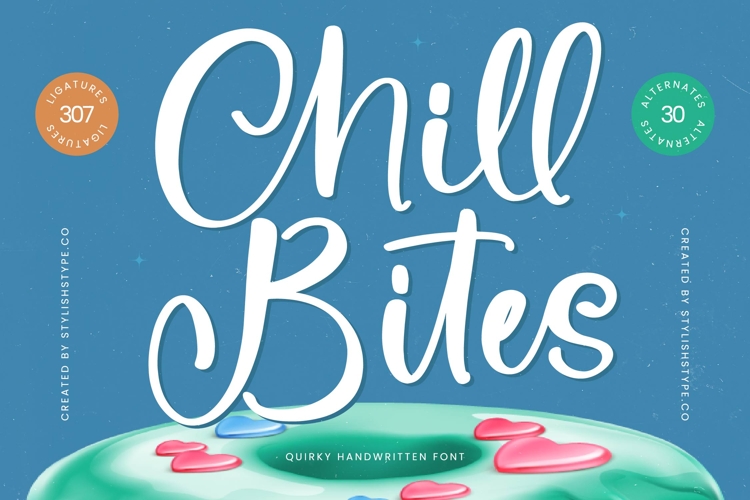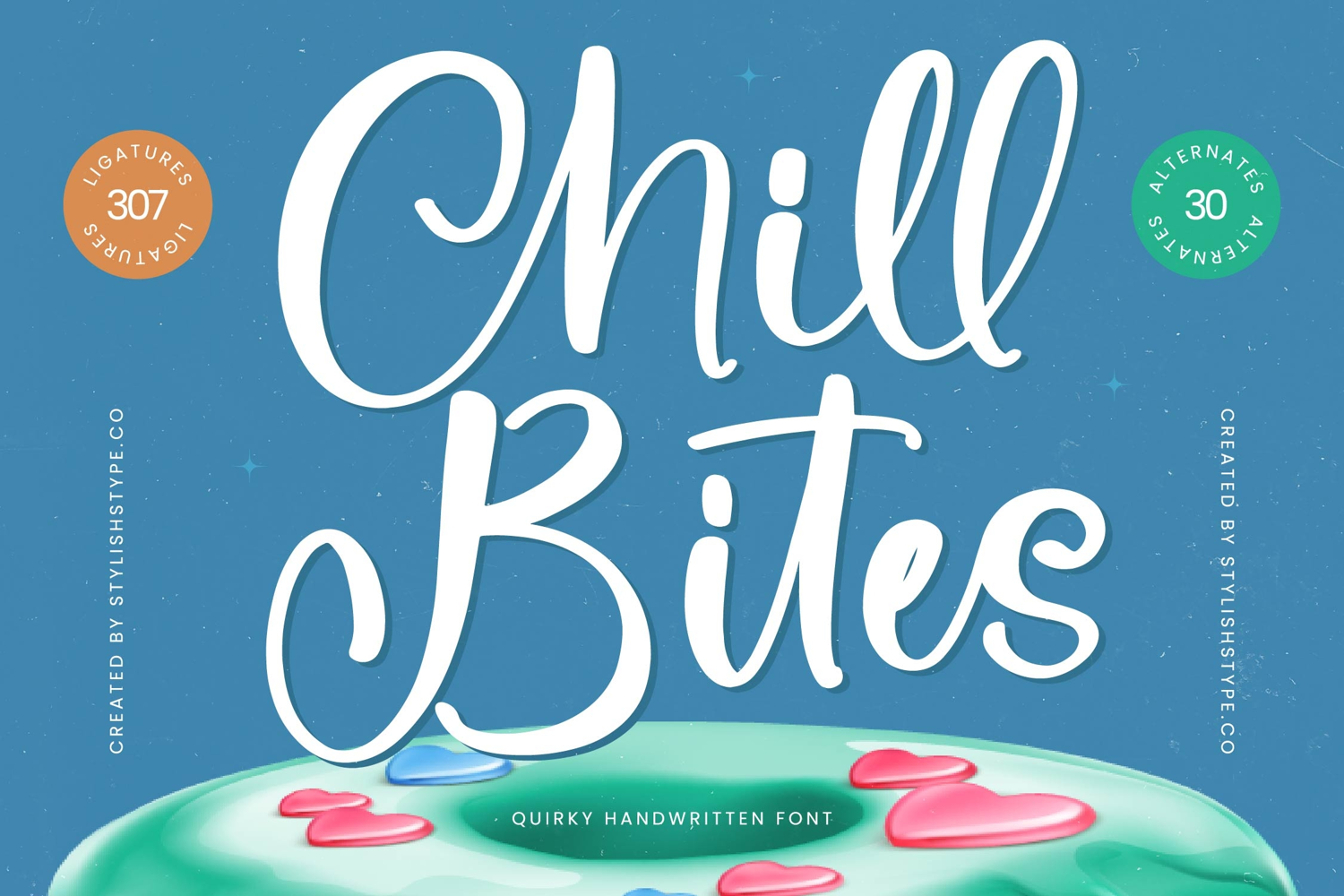
Chill Bites - Quirky Handwritten Font
Unleash a wave of delightful charm into your designs with Font Chill Bites - Quirky Handwritten Font Script. This captivating script font exudes a spontaneous, handcrafted aesthetic, perfect for conveying warmth and authenticity. Its flowing strokes and organic forms create an inviting visual experience, ideal for projects seeking a friendly, approachable, yet highly distinctive typography solution that genuinely connects with audiences.
Experience unparalleled design versatility with Font Chill Bites - Quirky Handwritten Font Script. Boasting an extensive character set, including over 300 unique ligatures and 30 stylistic alternates, this font offers endless creative possibilities. These rich features allow designers to craft truly bespoke headlines and text, ensuring a dynamic appearance that mimics natural handwriting and avoids repetitive character forms for a polished, custom feel.